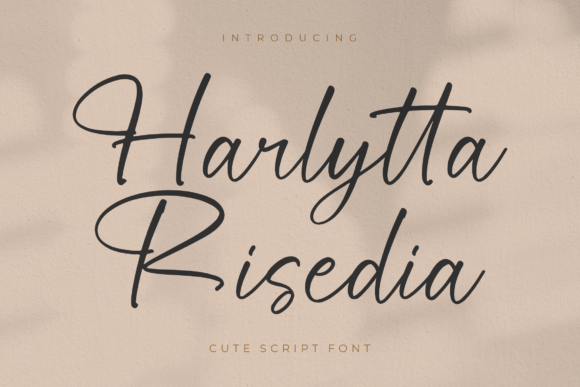
Unleash Your Creativity with the Alluring Harlytta Risedia Font
There’s nothing quite like the feeling of staring at a blank page, waiting for inspiration to strike. The cursor blinks, and your mind starts racing with ideas. You finally find the perfect combination of words, and it all comes together in a beautiful, flowing script. This is exactly what the Harlytta Risedia Font is designed to help you achieve – a perfect blend of elegance and sophistication.
This stunning script font is the perfect addition to any designer’s toolkit. Whether you’re working on a personal project or a commercial design, the Harlytta Risedia Font has the potential to elevate your creations to new heights. Its intricate details and delicate curves will add a touch of warmth and personality to any text, making it a valuable asset for designers of all levels.
Harlytta Risedia Font Key Features
- Font Family: Harlytta Risedia Font
- Unique Characteristics: A modern, elegant script font with a unique blend of calligraphy and handwritten styles, suitable for various design applications, including logos, headings, and body text
- Character Set: Supports a wide range of languages, including Latin-based languages and some Cyrillic and Greek scripts
Review: Harlytta Risedia Font
As a designer, I’ve had the chance to work with various fonts, and my experience with Harlytta Risedia has been quite interesting. Here’s my honest review.
- The font’s elegant and refined aesthetic makes it perfect for luxury brands and high-end designs.
- The script and uppercase letters are well-designed, creating a sense of sophistication.
- The font’s x-height is relatively high, making it readable even in smaller sizes.
- The font’s lowercase letters may not be the best choice for body text, as they can be quite ornate and difficult to read.
Overall, I think Harlytta Risedia is a beautiful font that’s well-suited for specific design projects. While it has some limitations, it’s a great choice for designers who want to create a high-end, luxurious look. However, it may not be the best choice for everyday body text or projects with tight budgets.
Alternatives to Harlytta Risedia Font for Designers
Great Vibes is a modern script font that is perfect for creating a sophisticated and elegant look. It is ideal for use in titles, headings, and logos where a touch of luxury is needed. Great Vibes has a more refined and polished feel compared to Harlytta Risedia Font, making it suitable for high-end branding and marketing materials.
Comparison: Great Vibes has a more refined and elegant feel compared to Harlytta Risedia Font, making it suitable for more upscale designs.
2. Dancing Script
Dancing Script is a cursive font that is perfect for creating a playful and whimsical look. It is ideal for use in titles, headings, and body text where a touch of personality is needed. Dancing Script has a more dynamic and expressive feel compared to Harlytta Risedia Font, making it suitable for creative and artistic designs.
Comparison: Dancing Script has a more playful and expressive feel compared to Harlytta Risedia Font, making it suitable for more creative and artistic designs.
Pacifico is a beautiful script font that is perfect for creating a relaxed and beachy vibe. It is ideal for use in titles, headings, and body text where a touch of warmth is needed. Pacifico has a more laid-back and casual feel compared to Harlytta Risedia Font, making it suitable for outdoor and lifestyle branding.